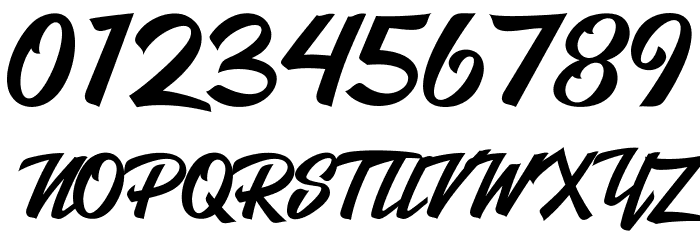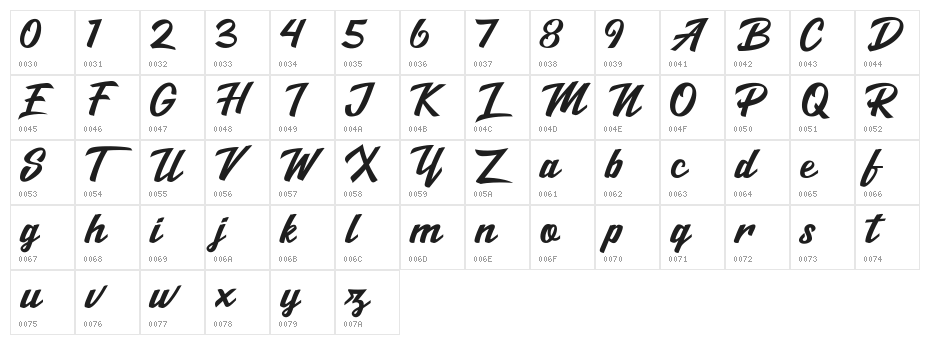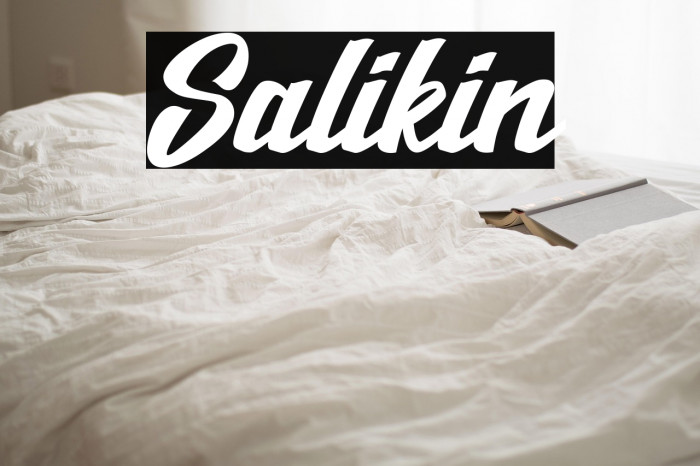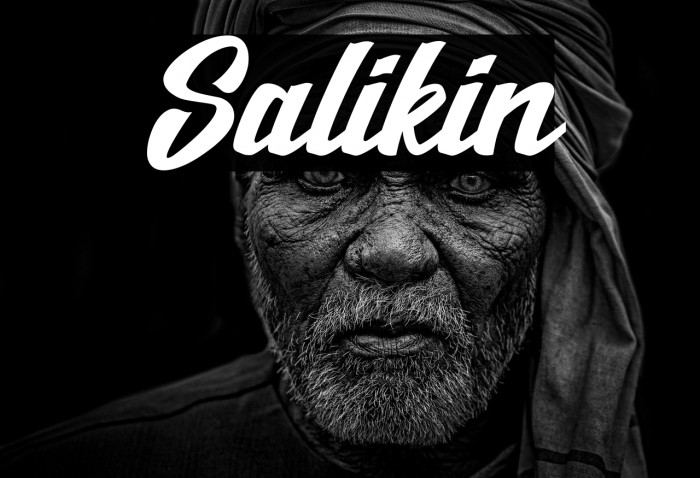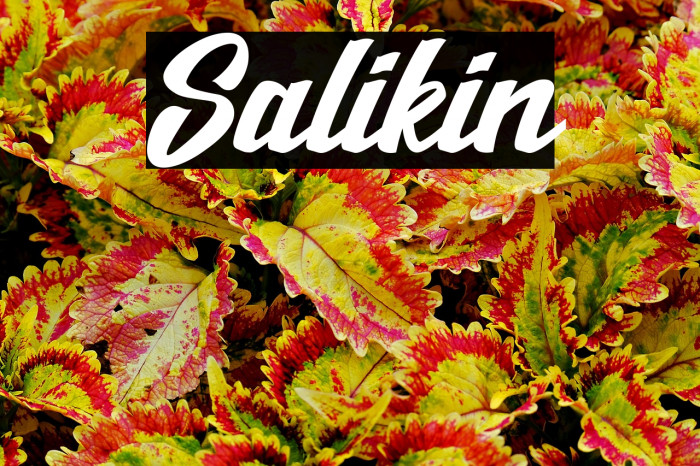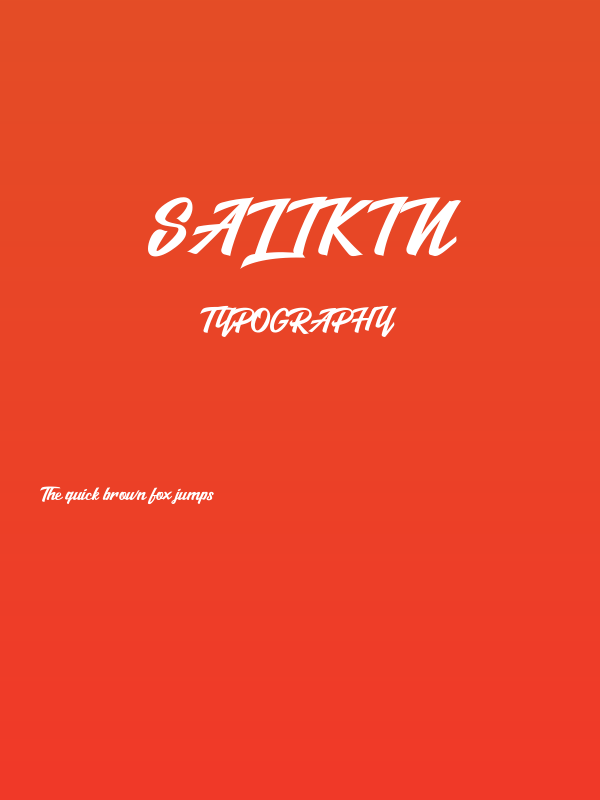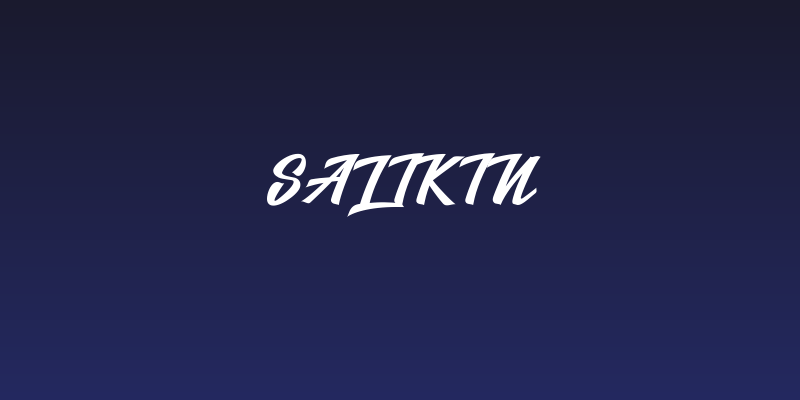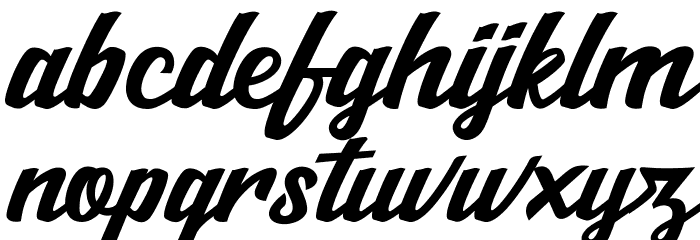
Salikin Font
Salikin Description
This font features a bold, cursive style with a strong emphasis on fluidity and movement. The letters are connected, creating a seamless flow that mimics natural handwriting. The strokes are thick and consistent, providing a sense of strength and confidence. The uppercase letters are slightly more angular, adding a touch of formality, while the lowercase letters maintain a smooth, rounded appearance. The numbers and special characters follow the same stylistic cues, ensuring a cohesive look across all elements. This font is highly legible, even at smaller sizes, making it versatile for various design applications.